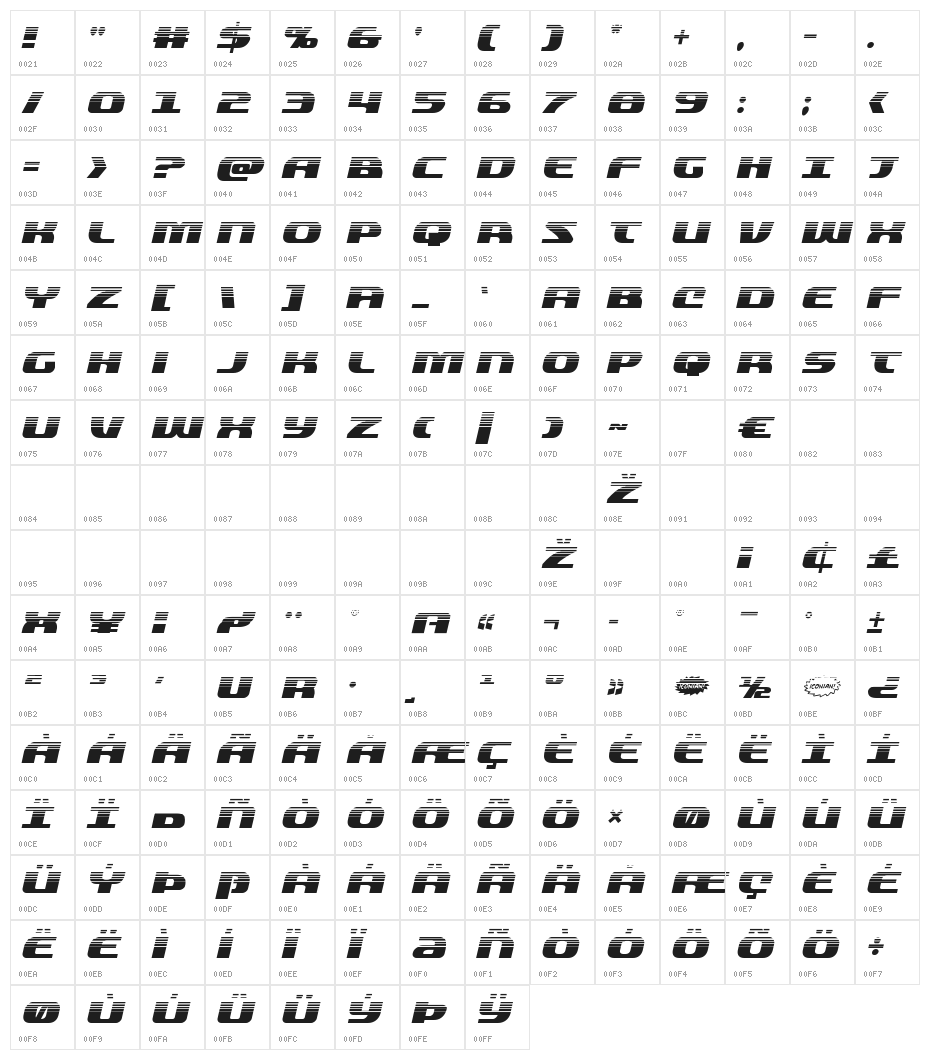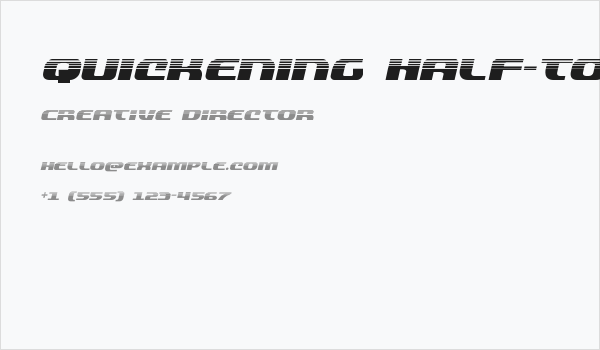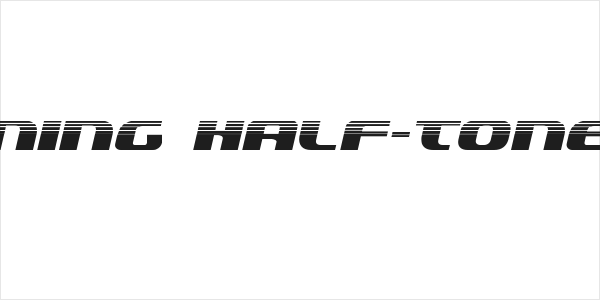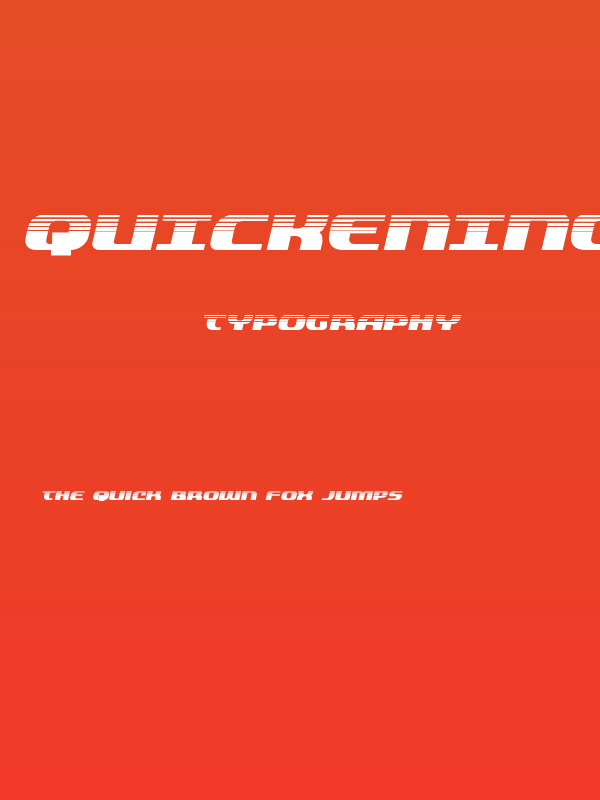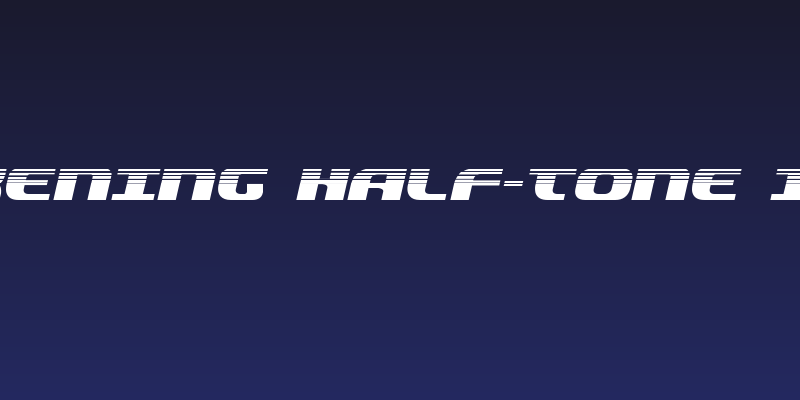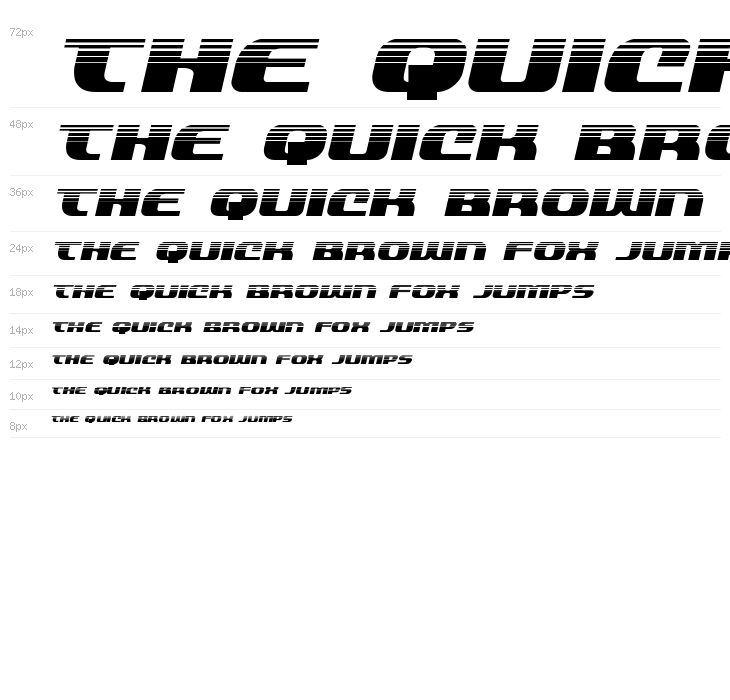
Quickening Half-Tone Italic Font
Quickening Half-Tone Italic Description
This font features a bold, dynamic style with a distinct half-tone effect that creates a sense of movement and energy. The characters are italicized, adding to the forward momentum of the design. Each letter is composed of horizontal lines that break up the solid forms, giving it a unique, futuristic appearance. The uppercase and lowercase letters maintain a consistent style, while the numerals and special characters integrate seamlessly with the overall aesthetic. The font's boldness and unique texture make it ideal for attention-grabbing designs.